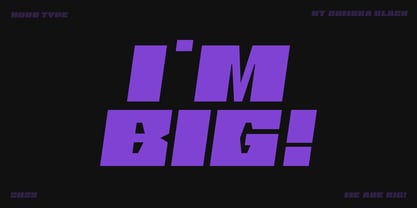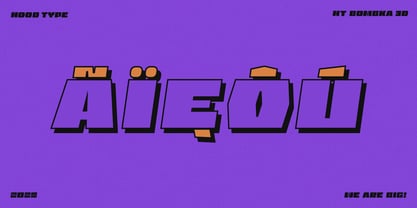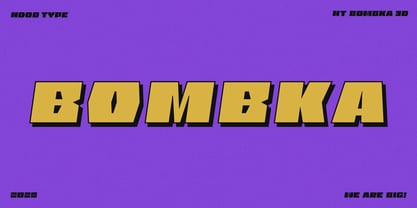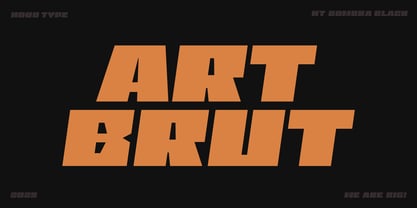
Bombka
by HoodType
The Bombka Font Family was designed by Przemek Kopczyk and published by HoodType. Bombka contains 3 styles and family package options.
BOMBKA is a distinctive typeface inspired by the monumental, geometric aesthetic of graffiti art. Its name refers to the term “graffiti bomber” —used to describe artists who create large-scale street art pieces that dominate urban space.
When designing BOMBKA, we focused on maximum visibility and the visual impact of the message. This uncompromising font demands attention, delivering bold and legible visual statements. It’s a perfect choice for projects that require a strong, expressive character.
Designers: Przemek Kopczyk
Publisher: HoodType
Foundry: HoodType
Design Owner: HoodType